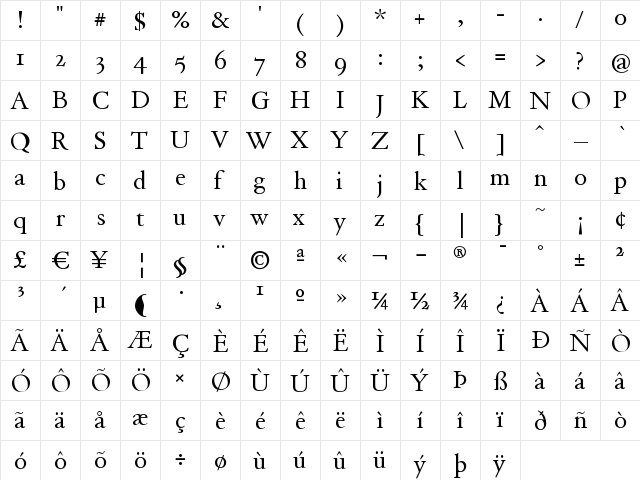
Day Roman Regular
Design Context for Day Roman Typeface
Day Roman offers clean, dependable letterforms without strong stylistic allegiance, making it a practical choice for designers who need flexibility.